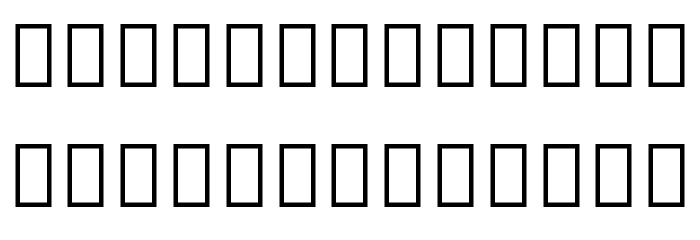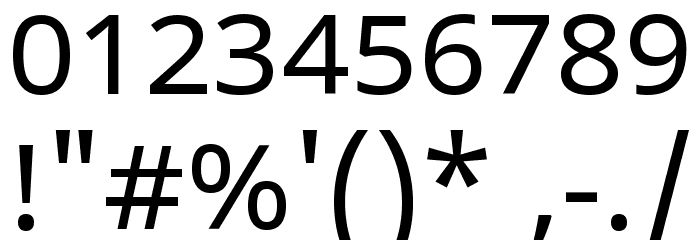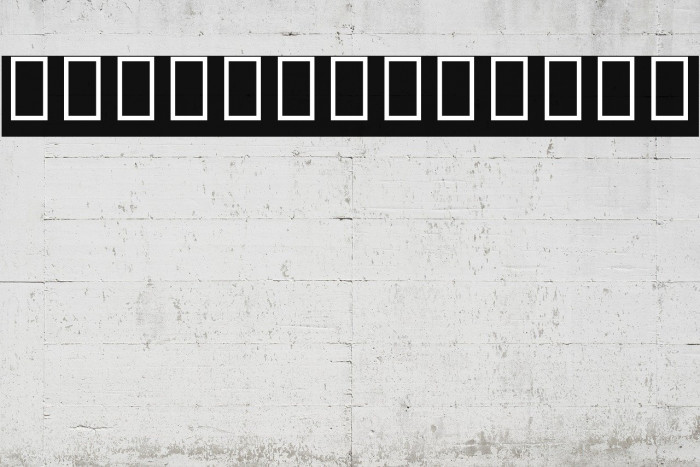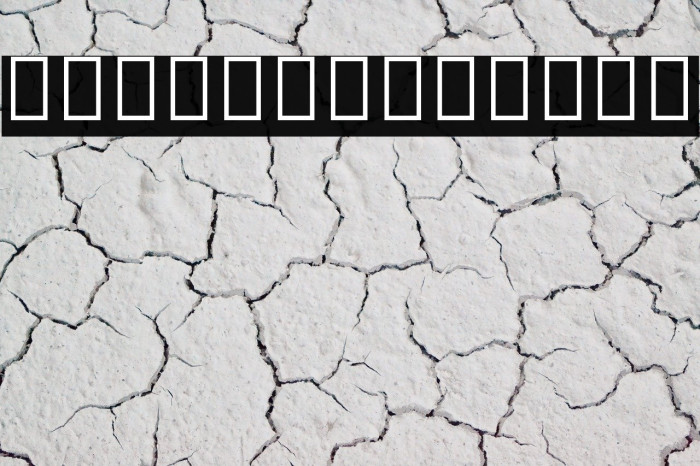
Noto Sans Telugu UI Font
This font is designed to support the Telugu script, offering a clean and modern appearance suitable for user interfaces. It features a sans-serif style with uniform stroke widths, providing excellent readability on digital screens. The characters are well-proportioned, with a focus on clarity and simplicity, making it ideal for both small and large text sizes. The numerals and special characters are distinct and easy to distinguish, enhancing the font's usability in various applications.
A modern, sans-serif font designed for Telugu script with excellent readability.
- Proposed Projects: Ideal for digital interfaces, mobile applications, and web design where Telugu script is required.
- Category: Sans-Serif
- Use Case: User interfaces, digital content, web design.